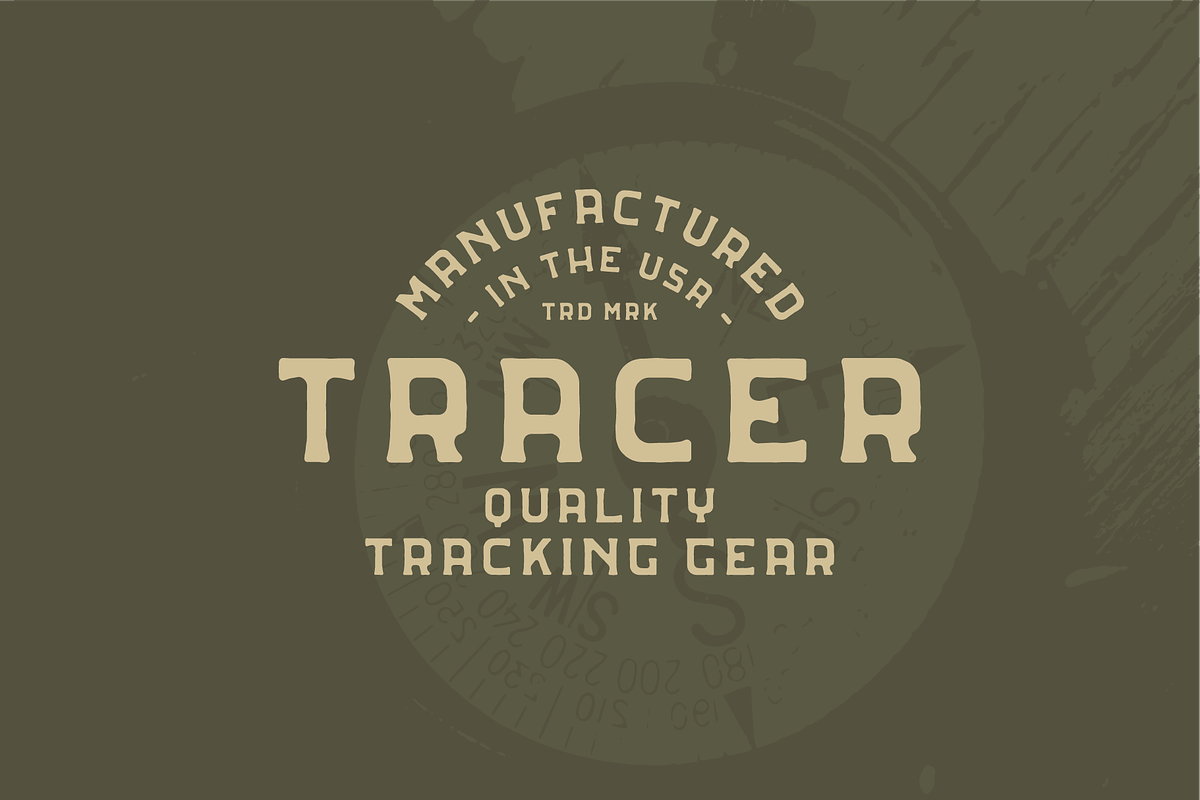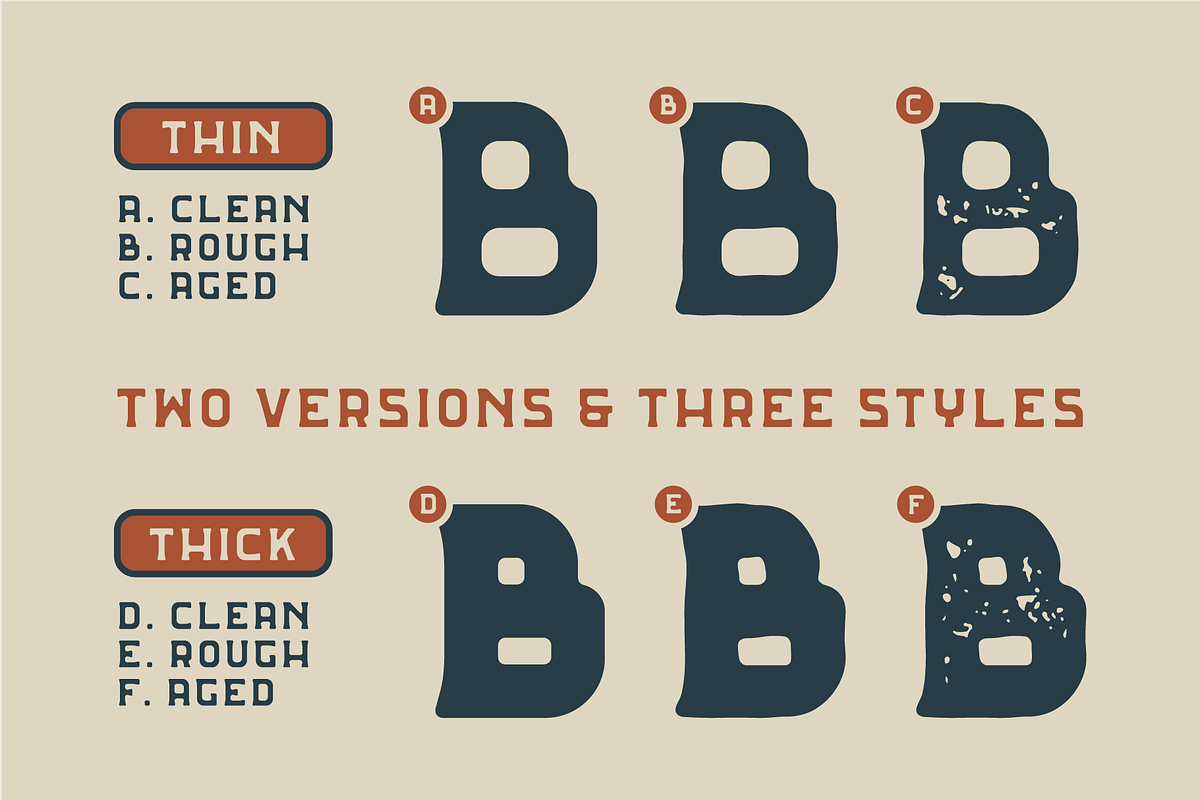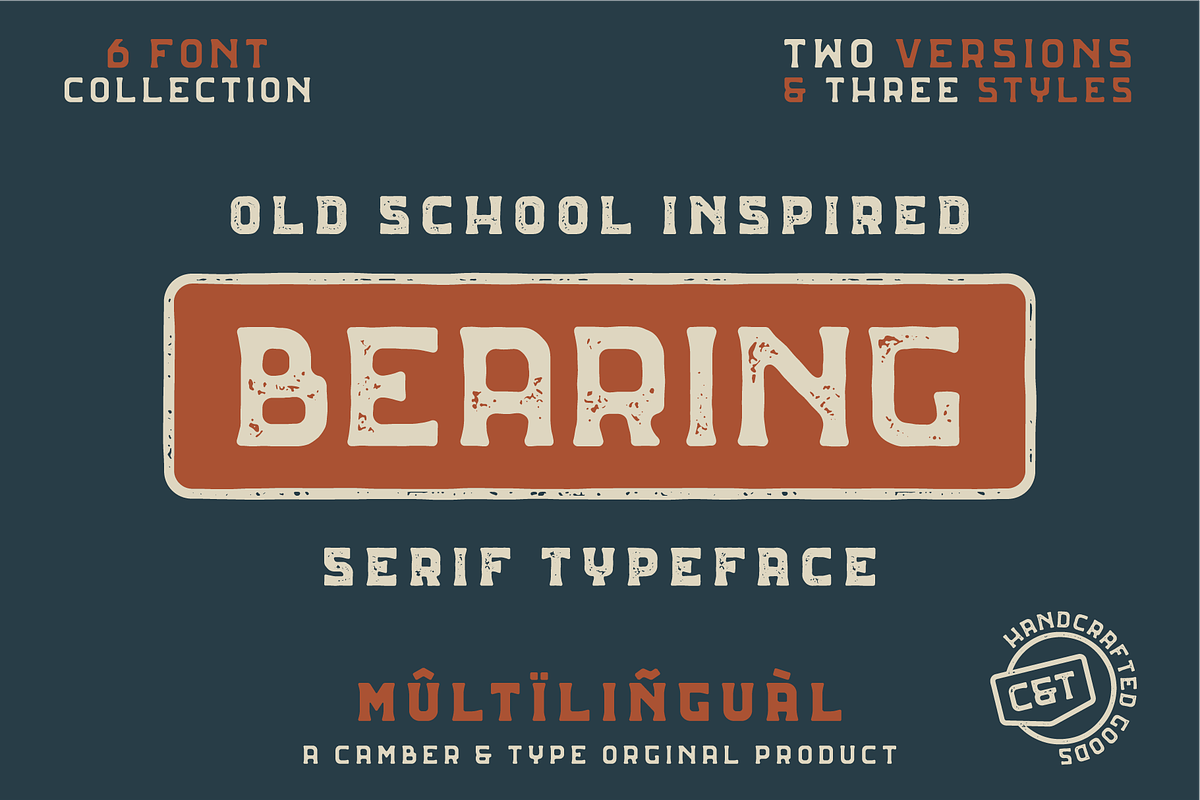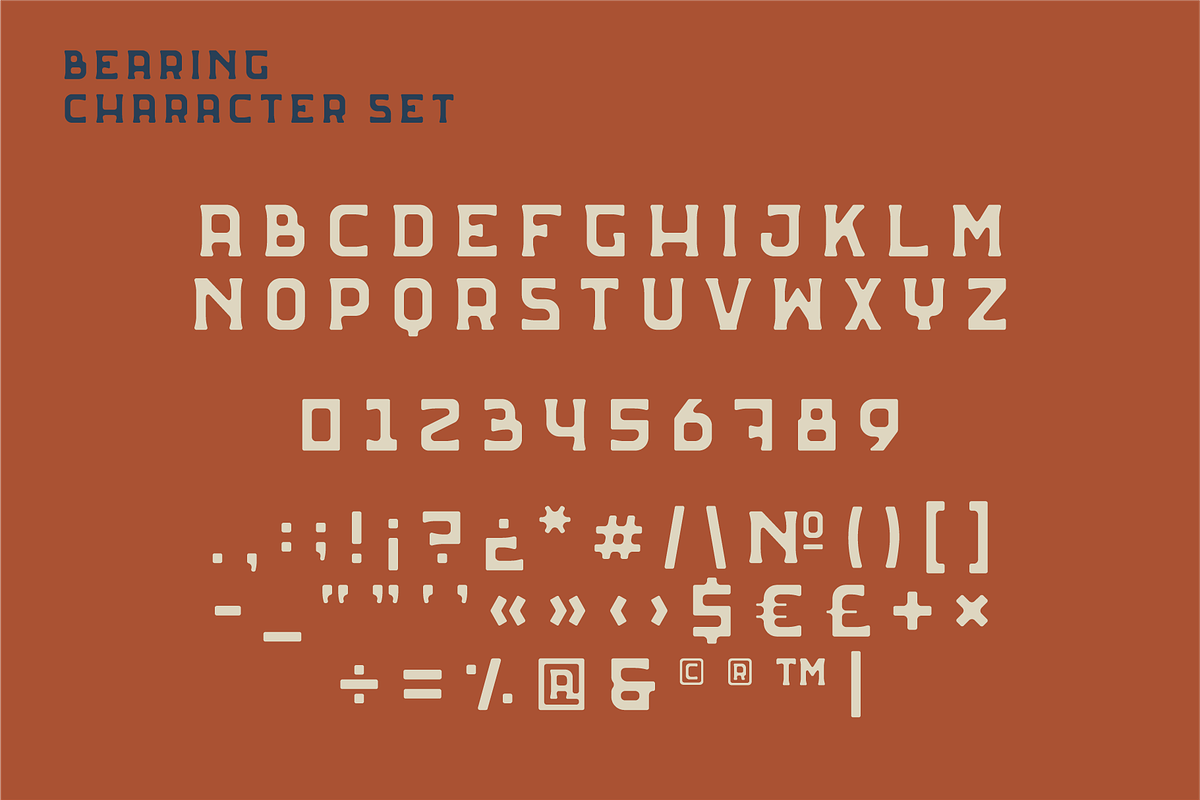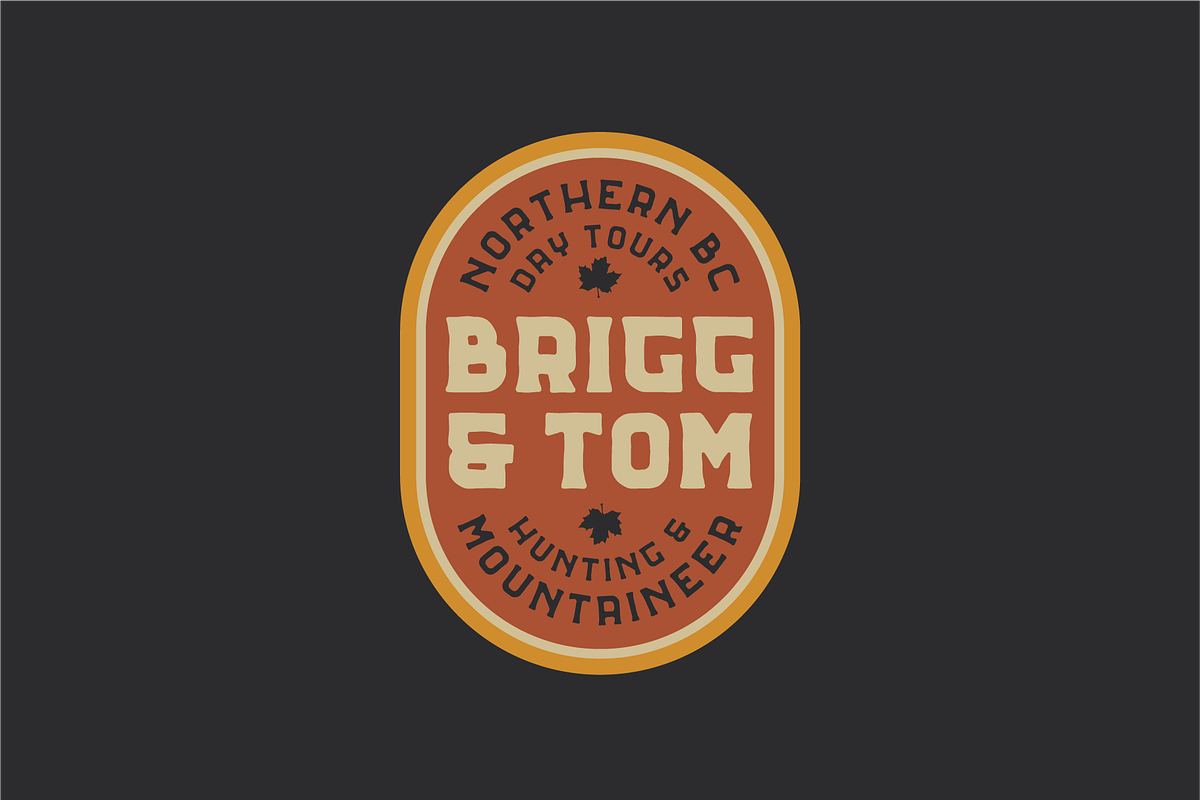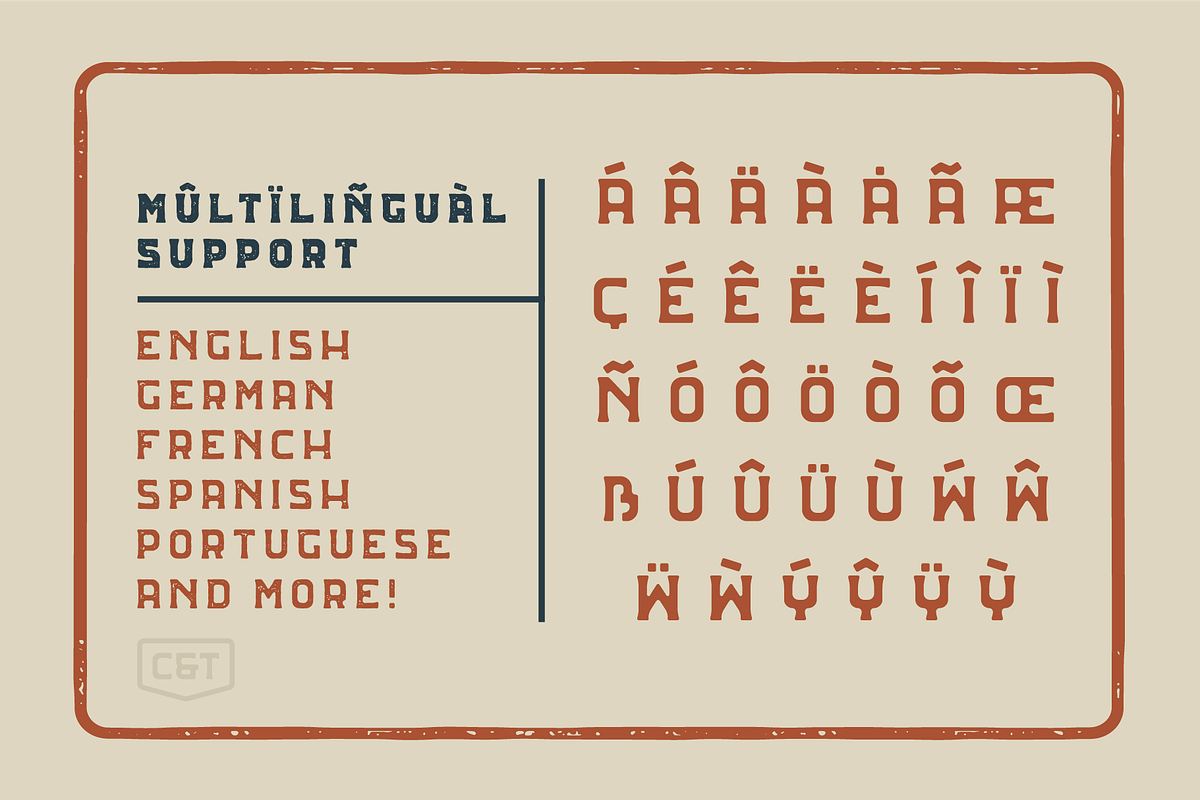
Bearing - Type Family
Introducing our Bearing Typeface!
The type family features two weights (Bearing Thin & Bearing Thick) along with three styles each (Clean, Rough, Aged) for a total of 6 fonts within the type family.
A versatile outdoor inspired serif typeface, Camber & Type introduces the Bearing typeface. Inspired from everything in between the great outdoors in the woods to out on the water, the multilingual font emerged to bring your project to the next level and give it a taste of old school wilderness.